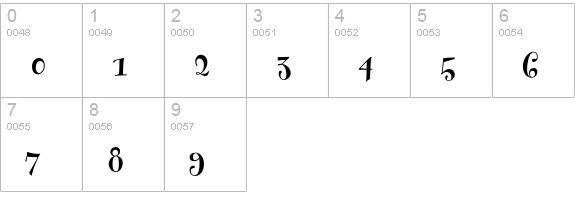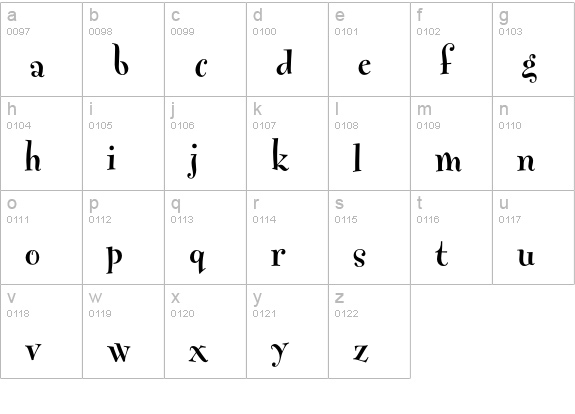
Fontesque-Bold is a strong, high-contrast variant in the Fontesque typeface family \xE2\x80\x94 well suited to headlines, attention-grabbing titles, and strong calls-to-action.
Fontesque-Bold is a modern and versatile typeface that exudes confidence and strength. With its bold and striking appearance, this font is perfect for making a statement in any design project. The clean lines and elegant curves of Fontesque-Bold give it a timeless appeal that can be used in a variety of applications, from branding to print materials. Best of all, Fontesque-Bold is available for free download at FontsMarket.com. This means you can easily access this high-quality font to enhance your creative projects without any cost. Whether you're designing a logo, creating a poster, or crafting a website, Fontesque-Bold is a reliable choice that will help you achieve a professional and polished look. Elevate your designs with Fontesque-Bold today, and let your creativity shine with this exceptional font.